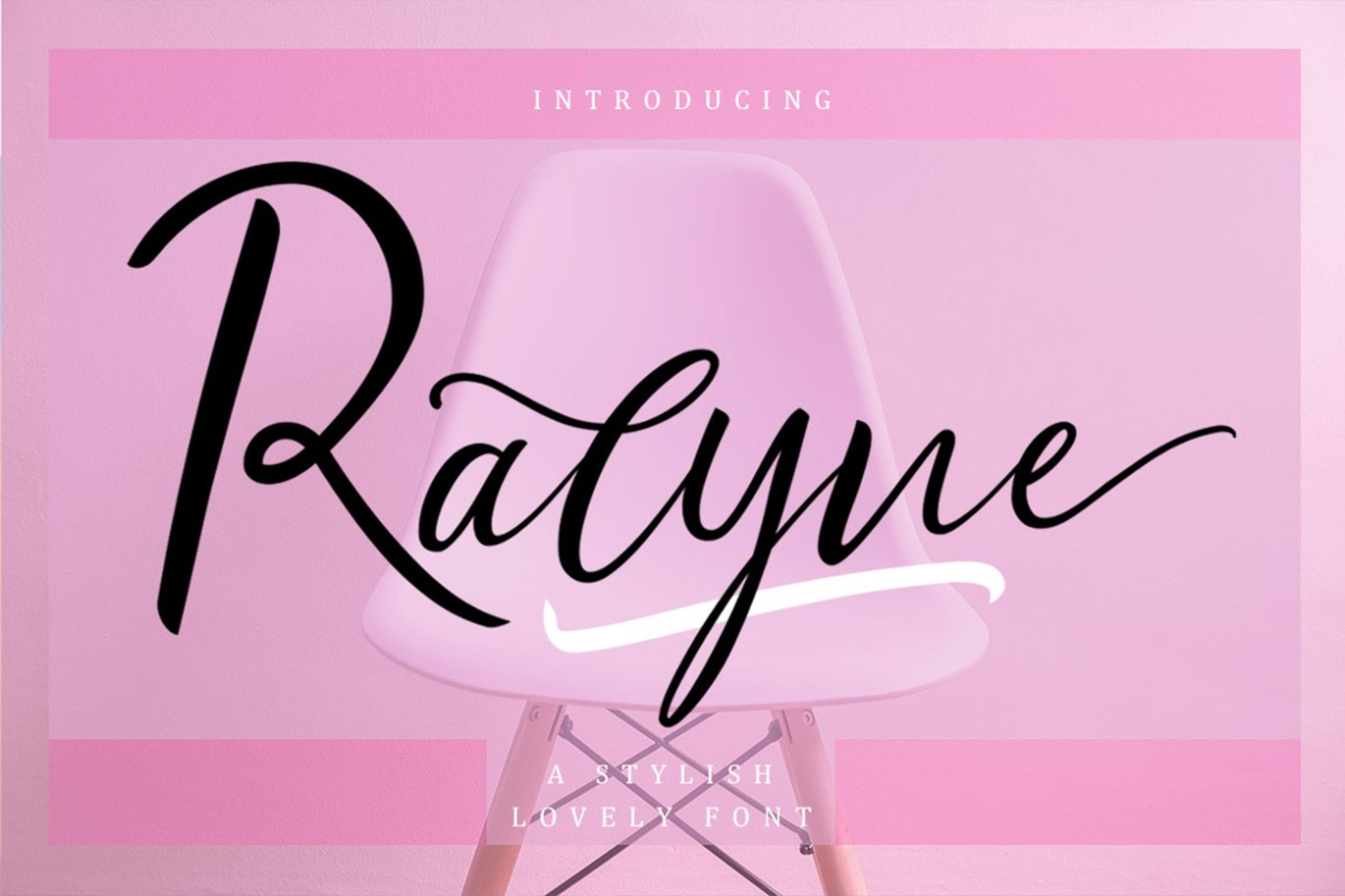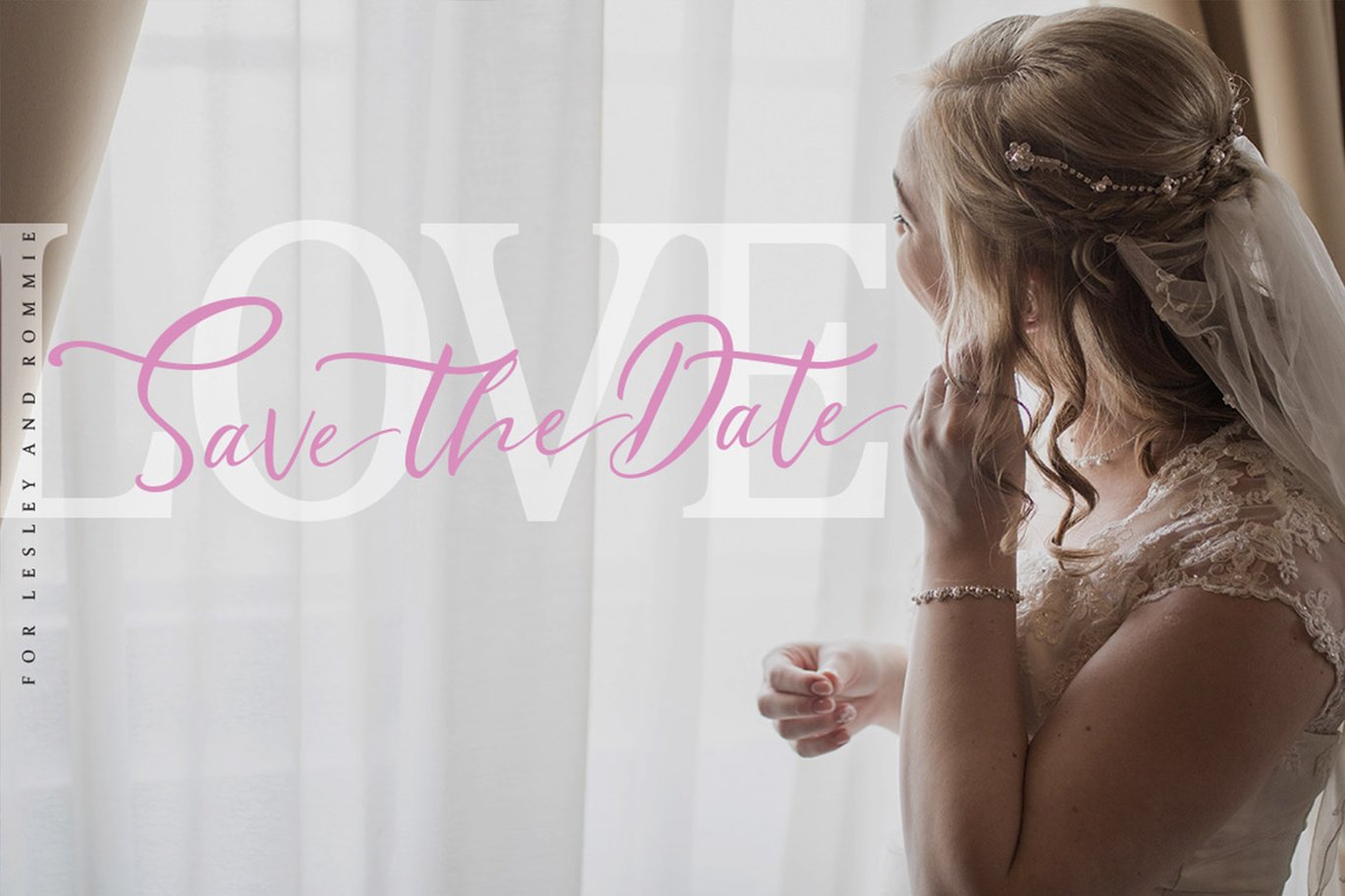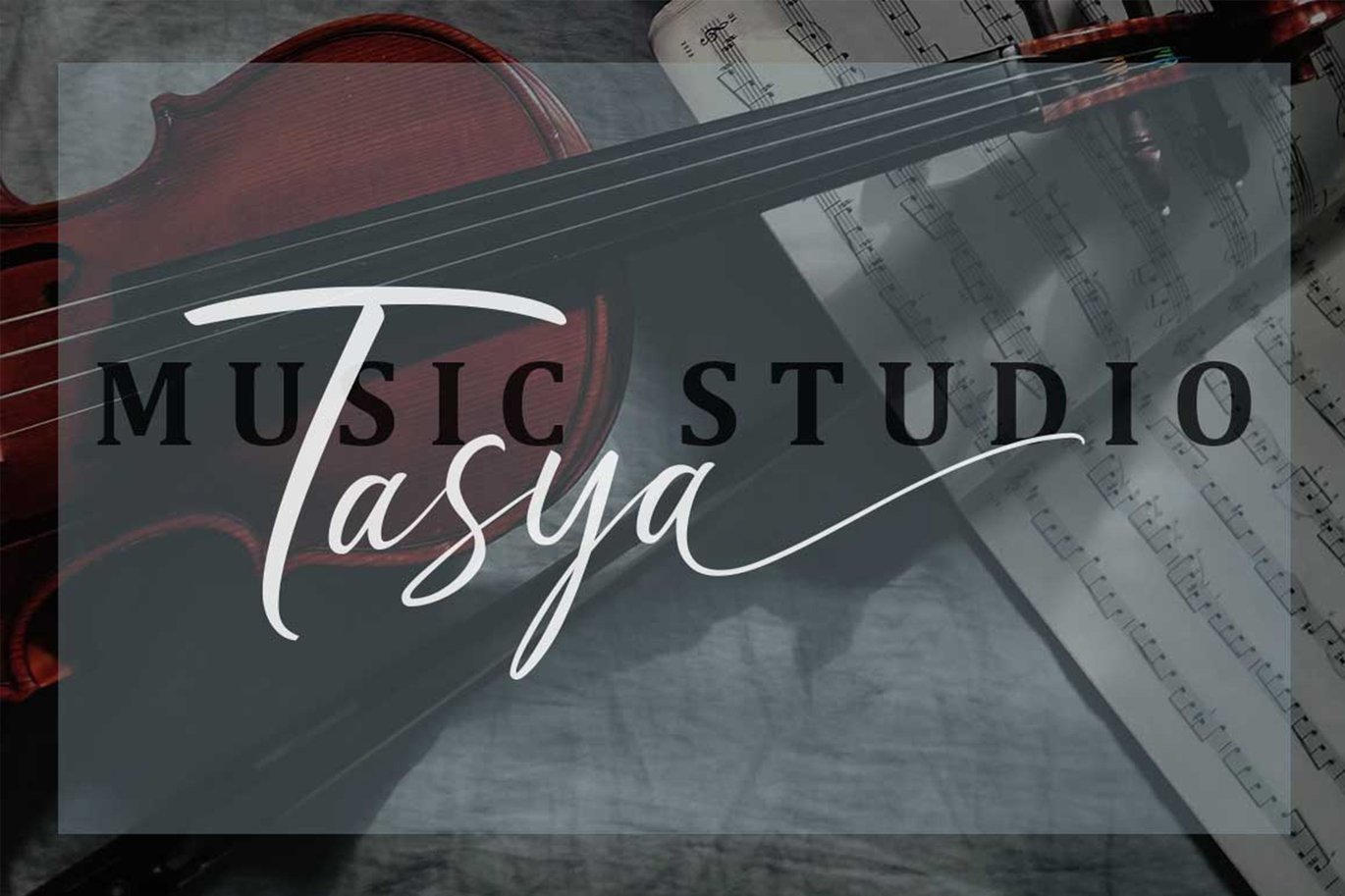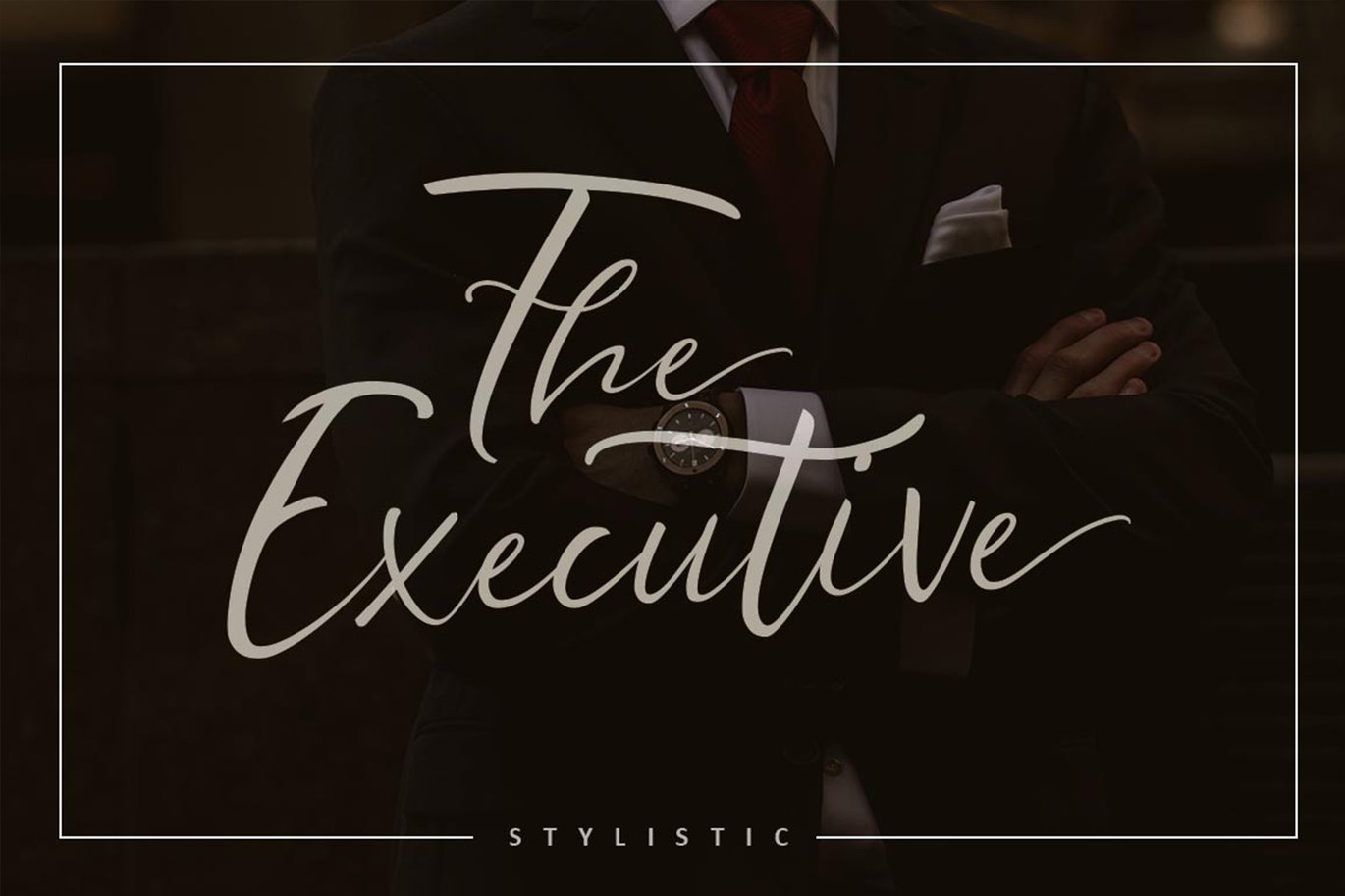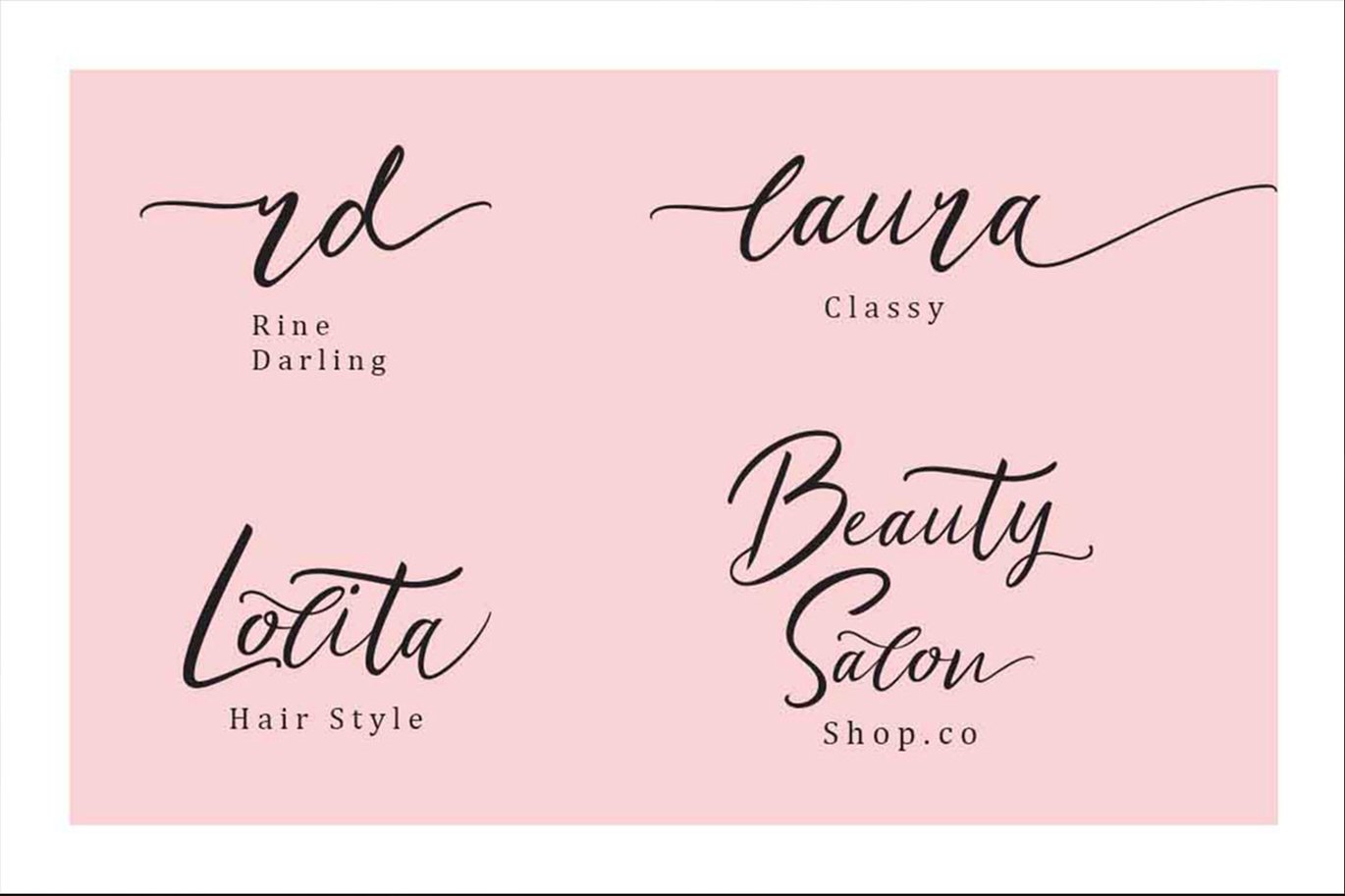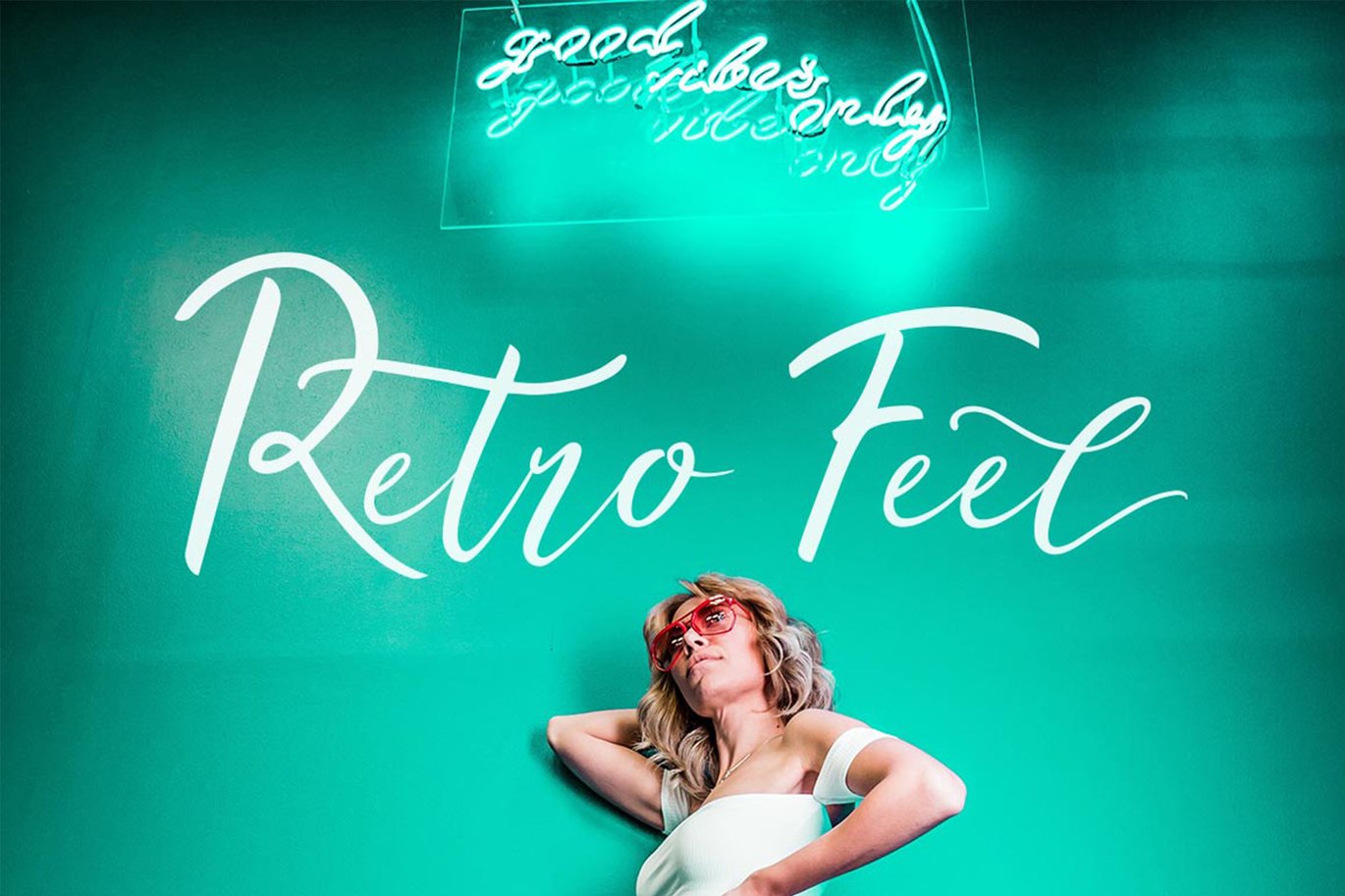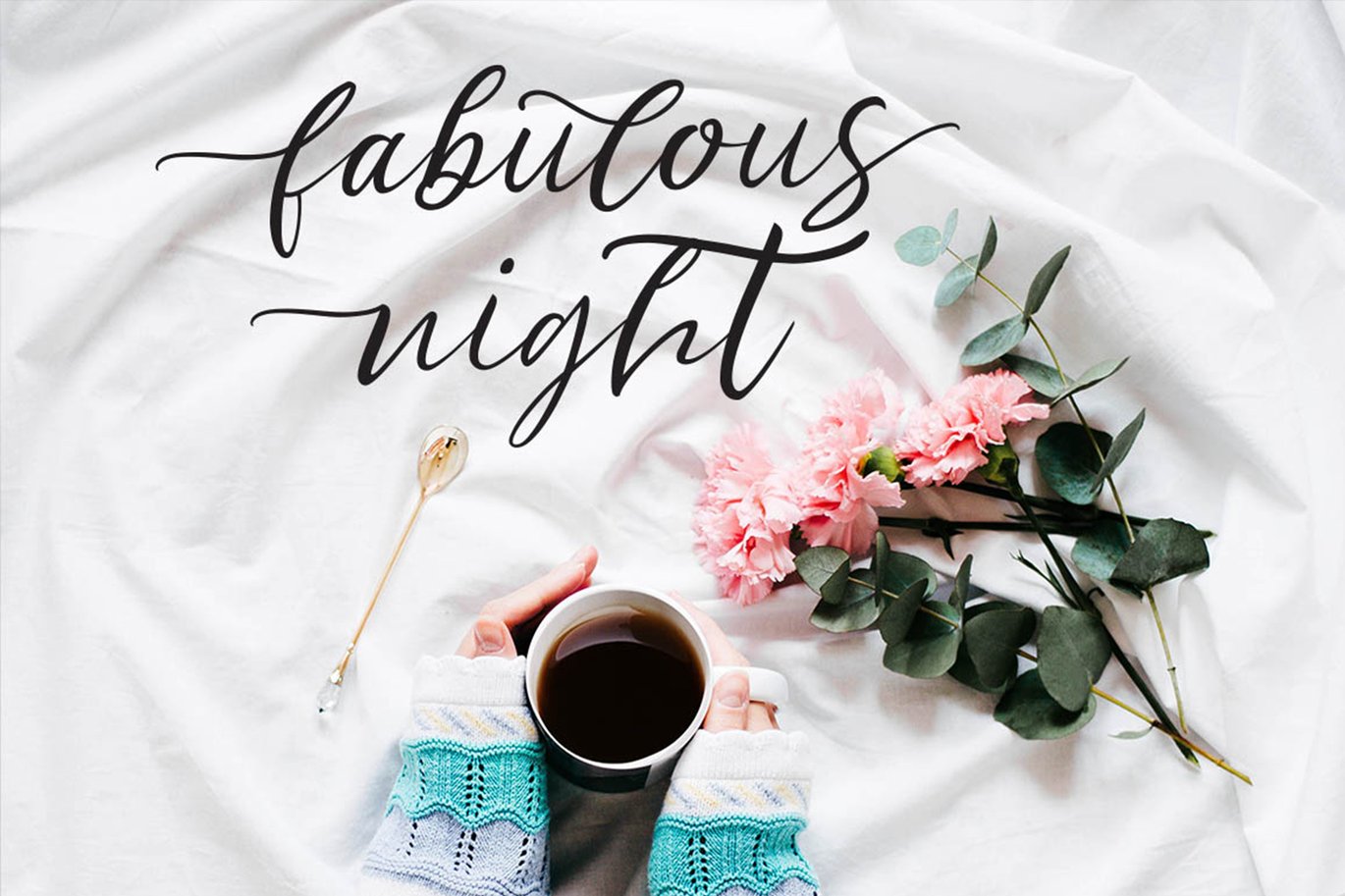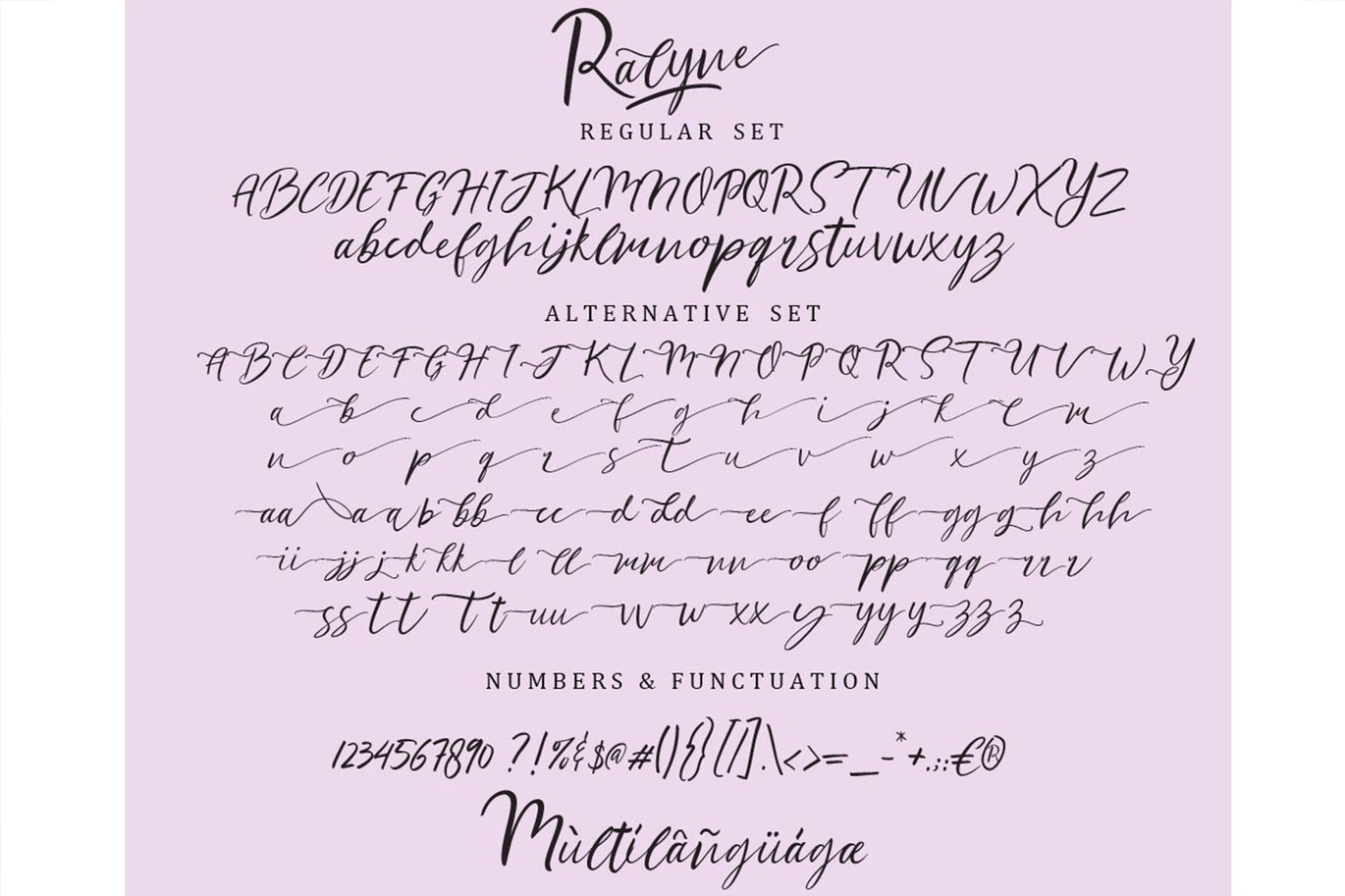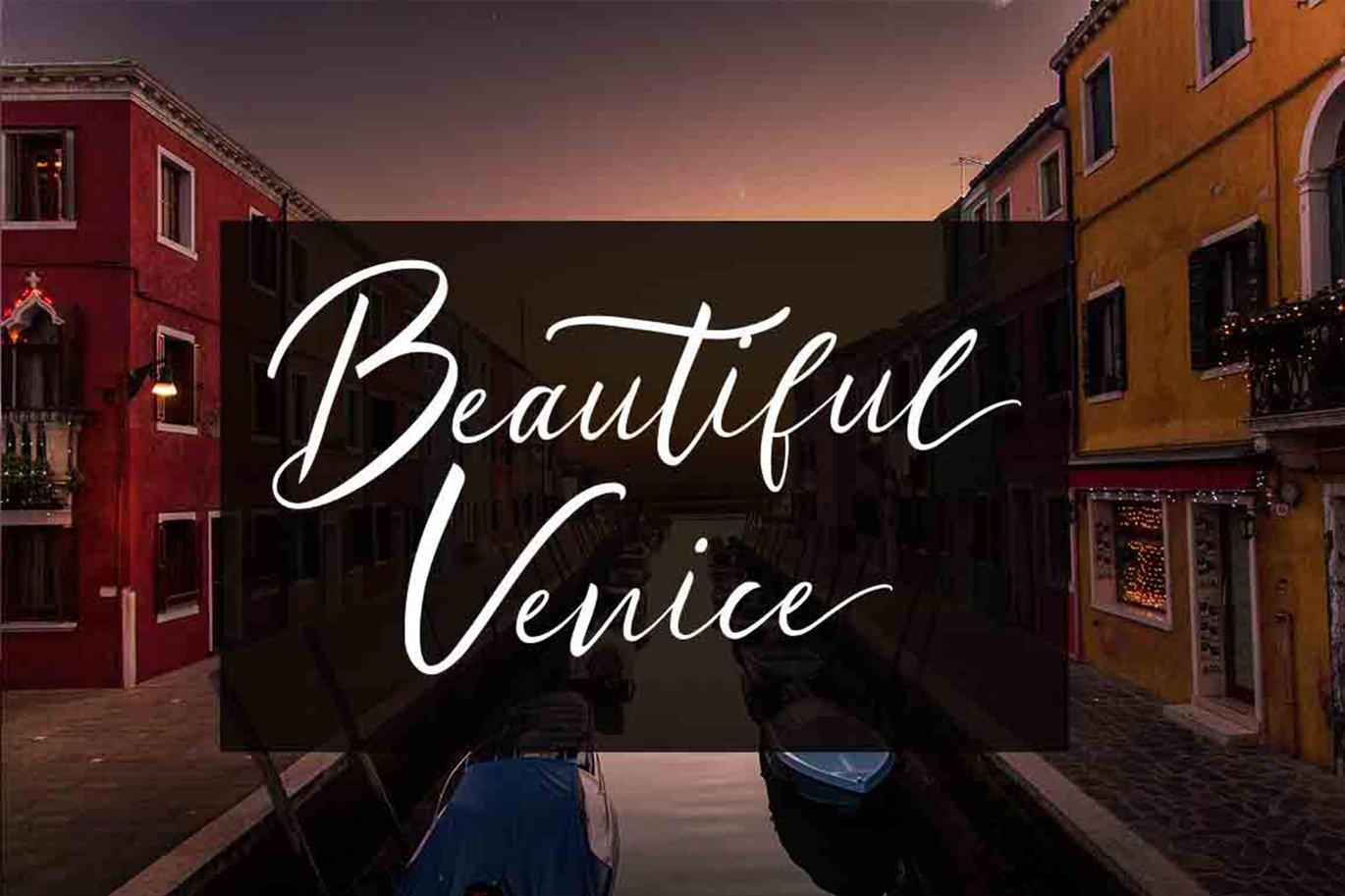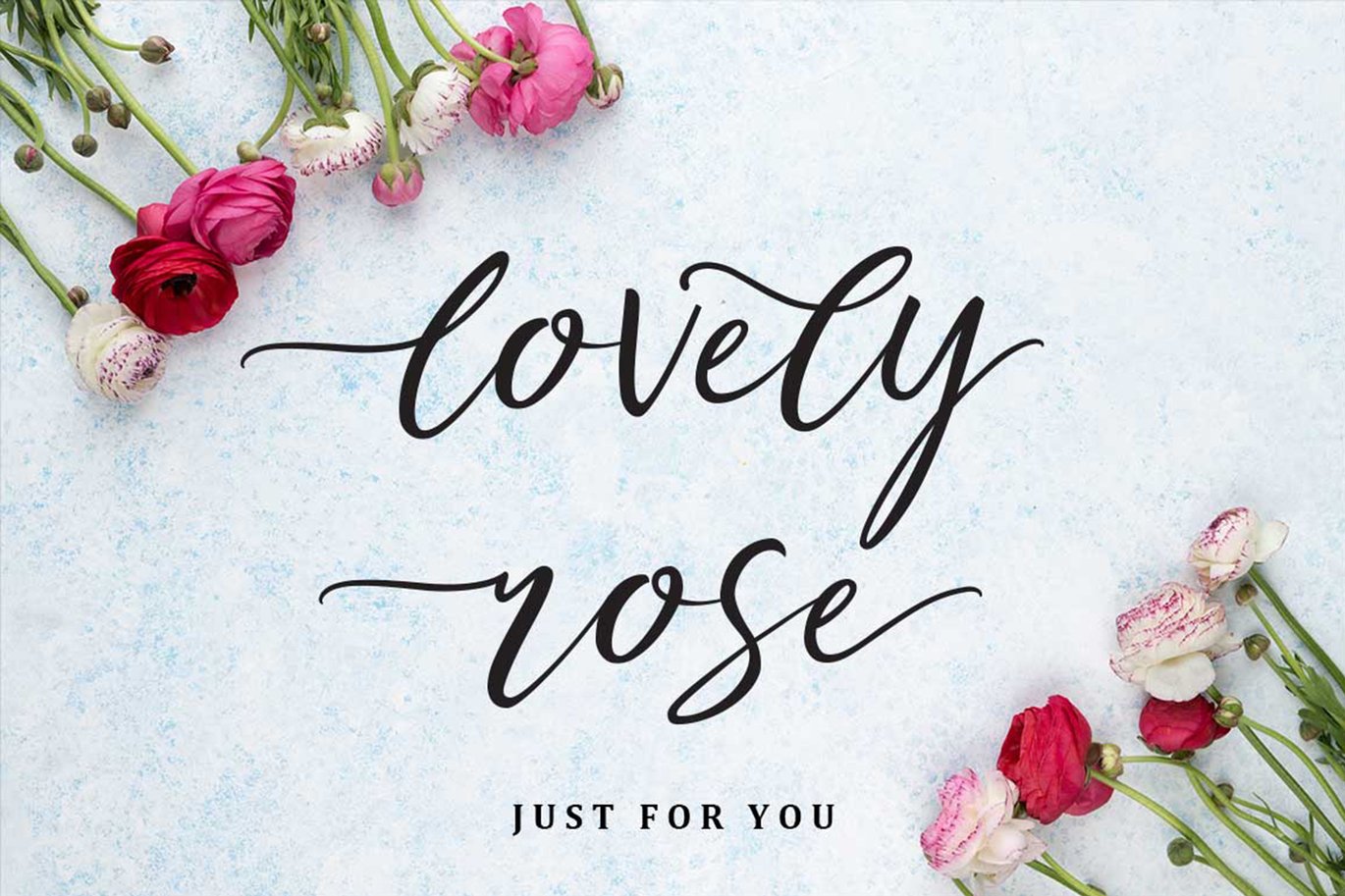
Ralyne Beautiful Cursive Font Script
Introducing Ralyne, a stylist lovely calligraphy font with handwritten, sophisticated flows. Ralyne offers beautiful typographic harmony for a diversity of design projects, including logos & branding, wedding designs, social media posts, advertisements & product designs.
“Ralyne” includes full set of lovely uppercase and lowercase letters, multilingual symbols, numerals, punctuation and ligatures.
- Alternative Stylistic
- Symbols
- Stylistic Set
- Multilanguage Support